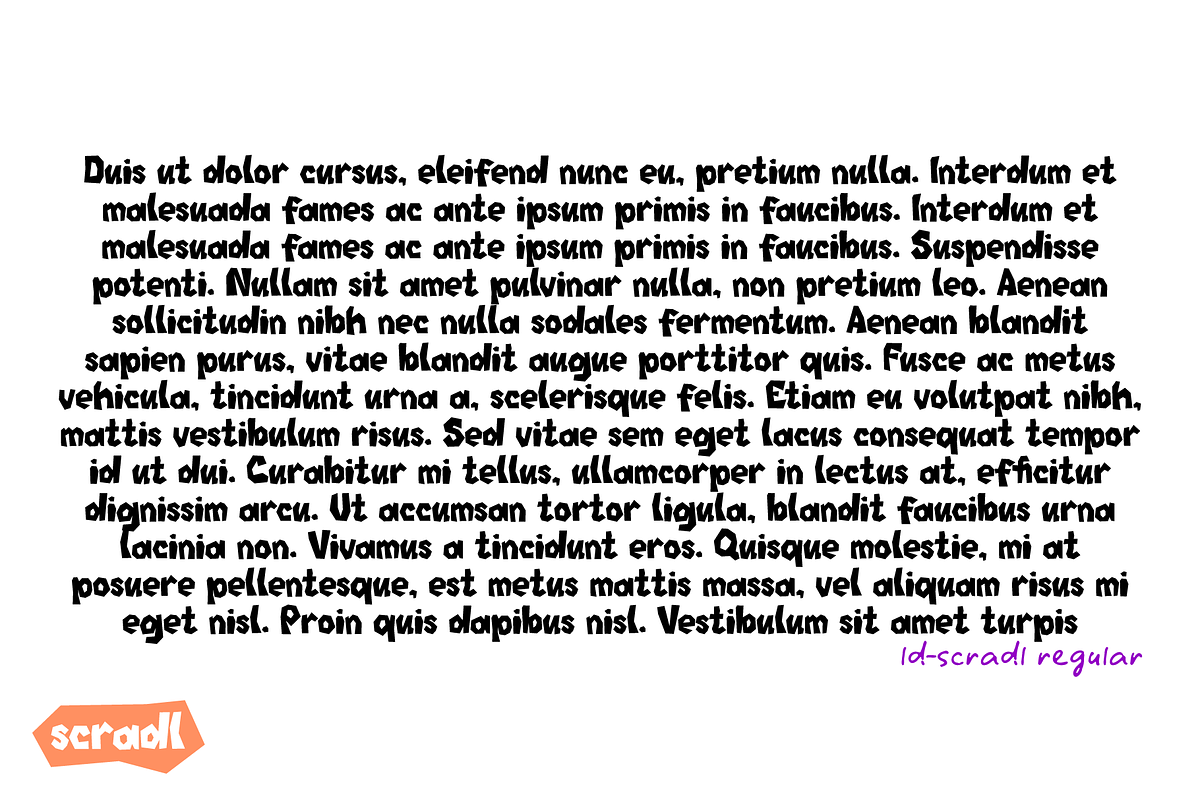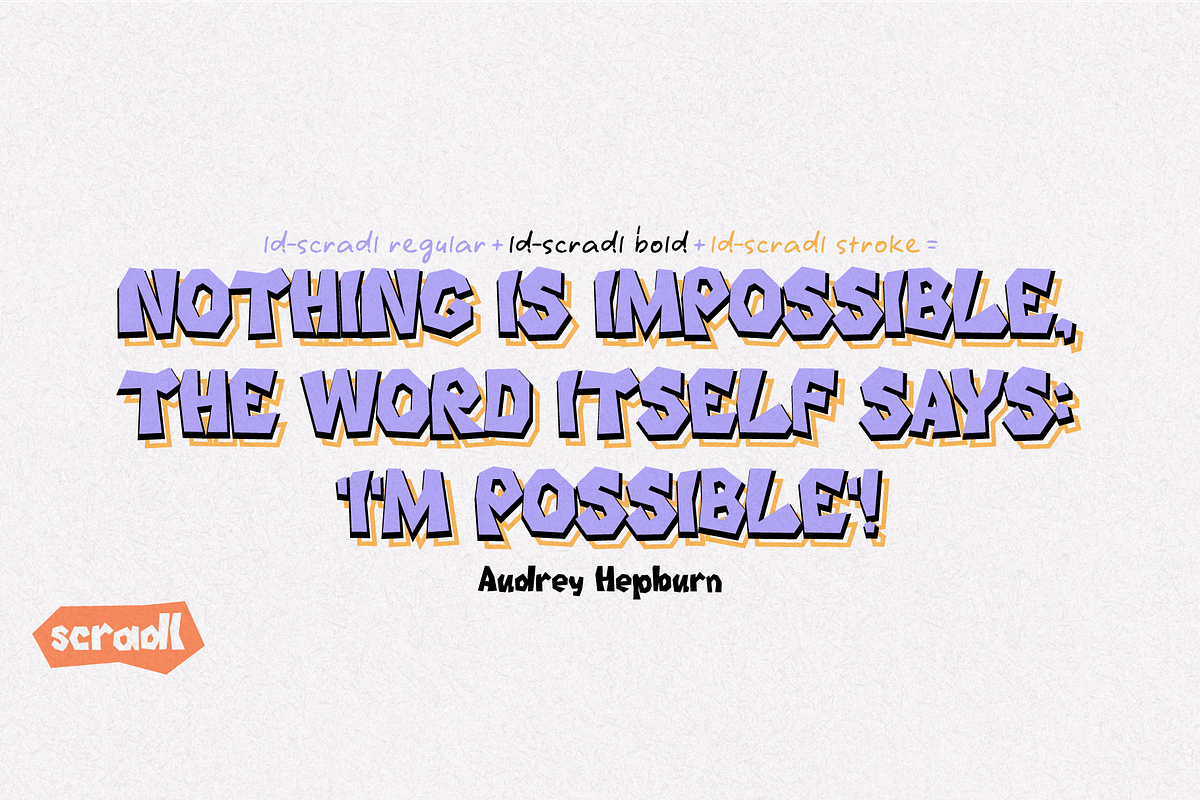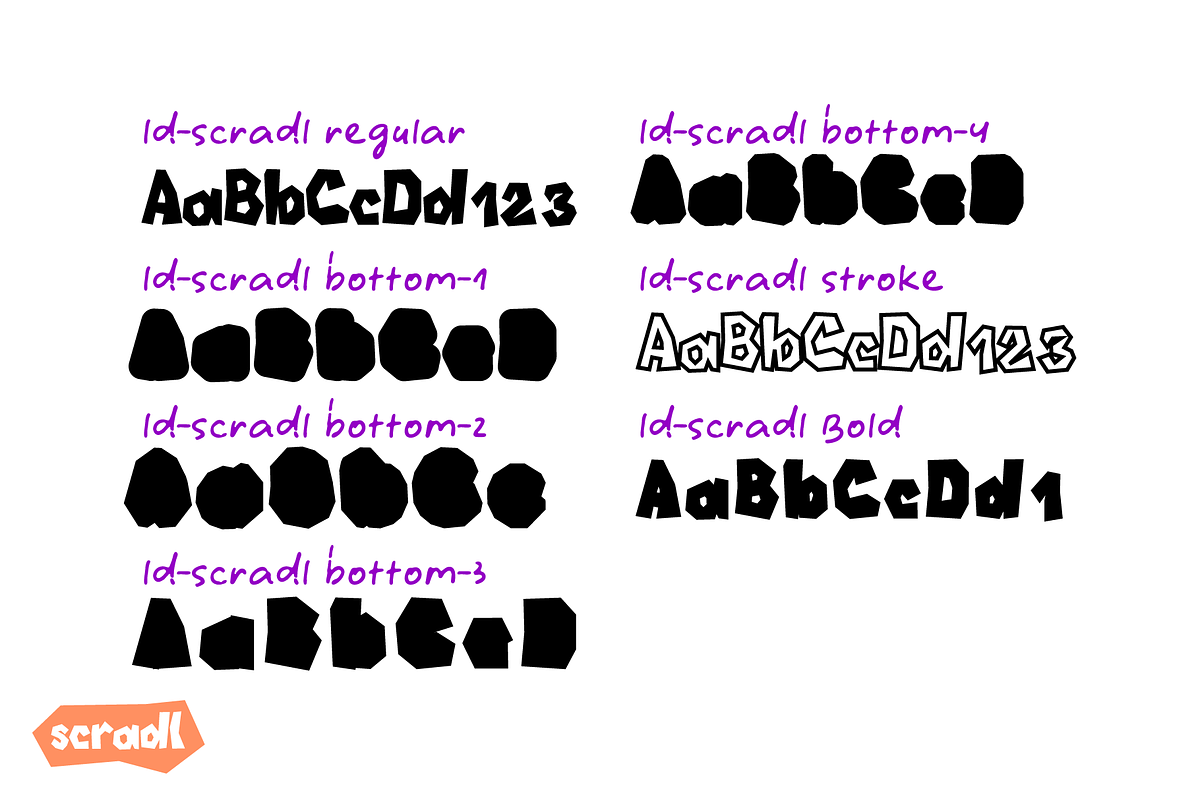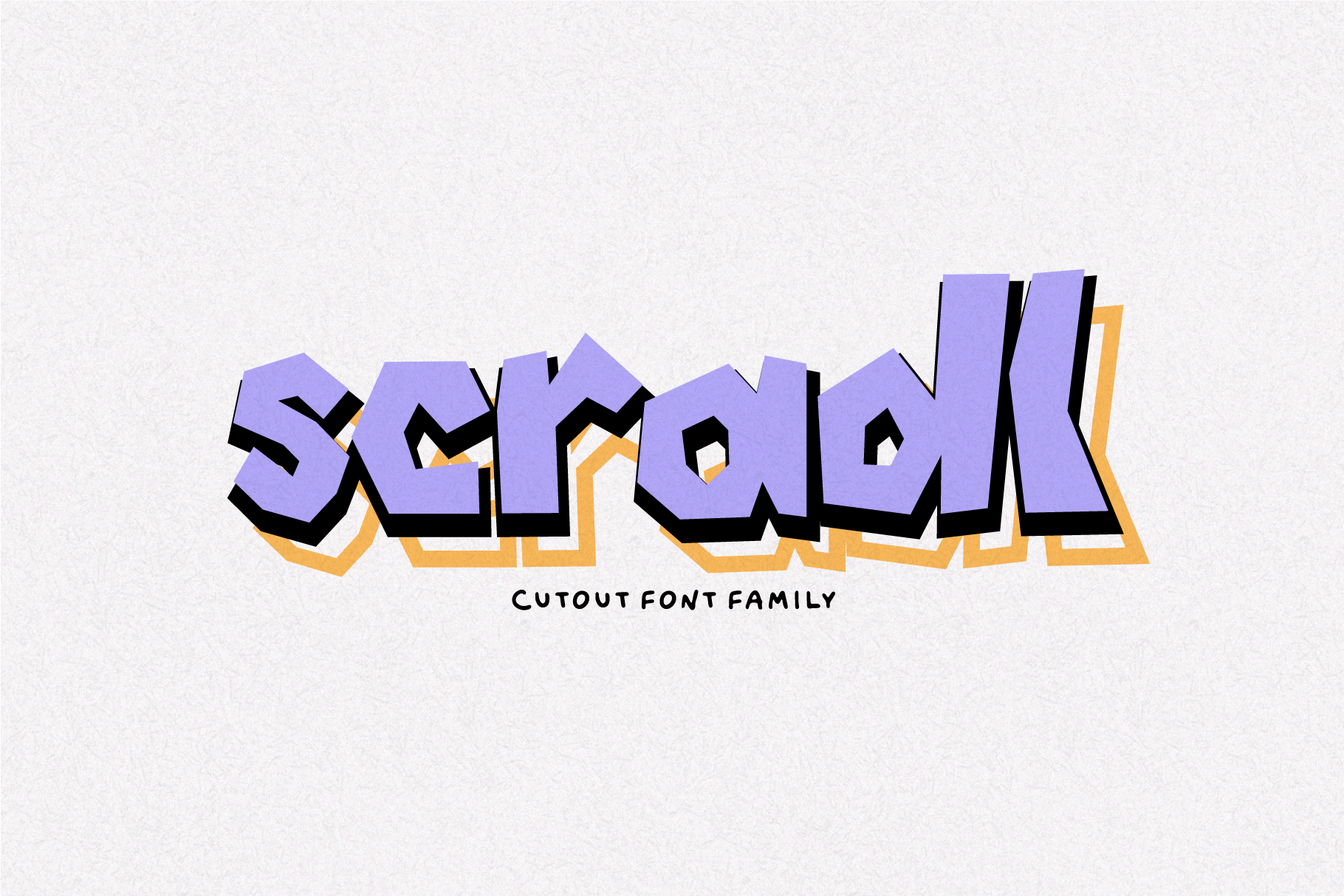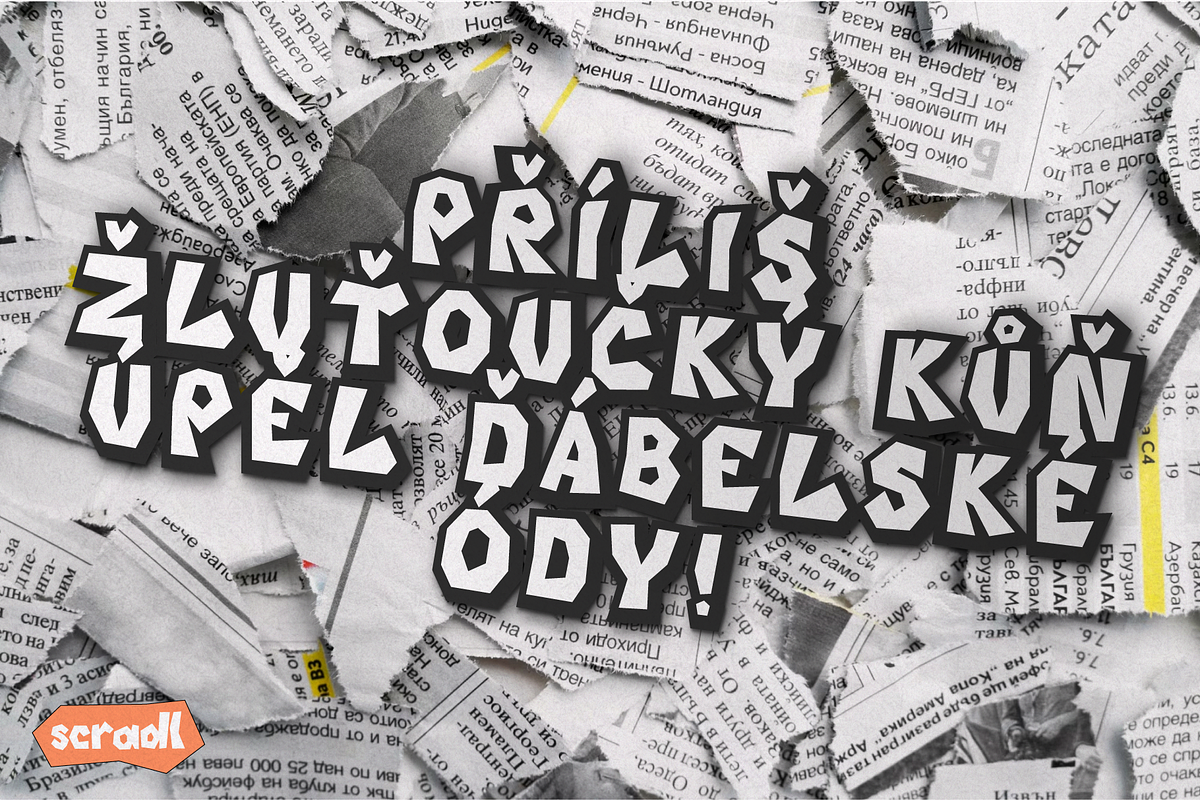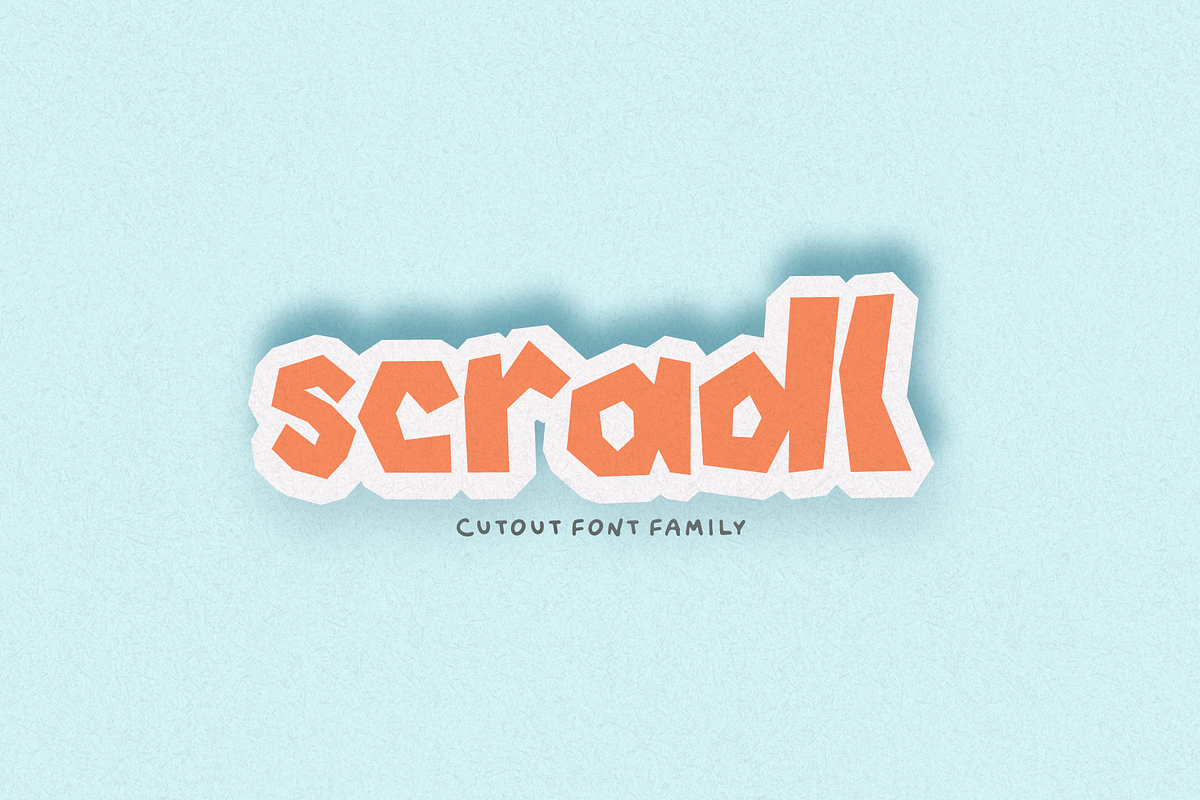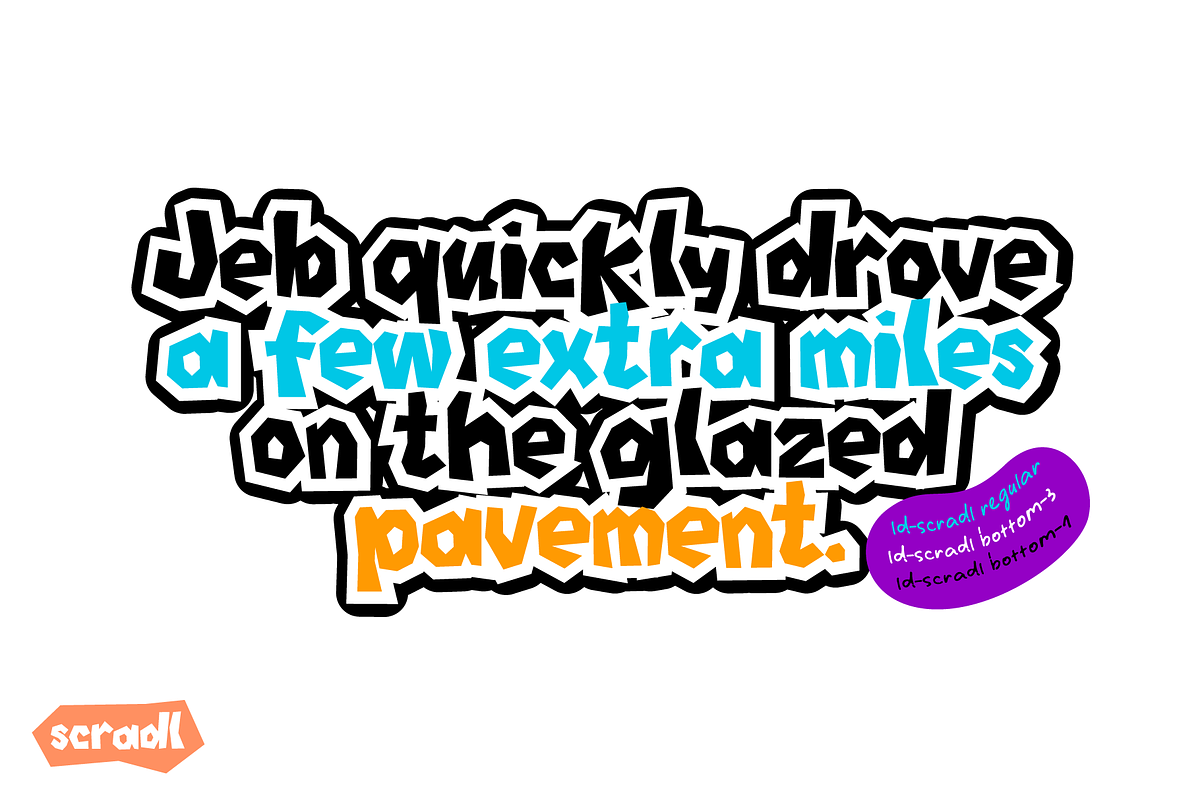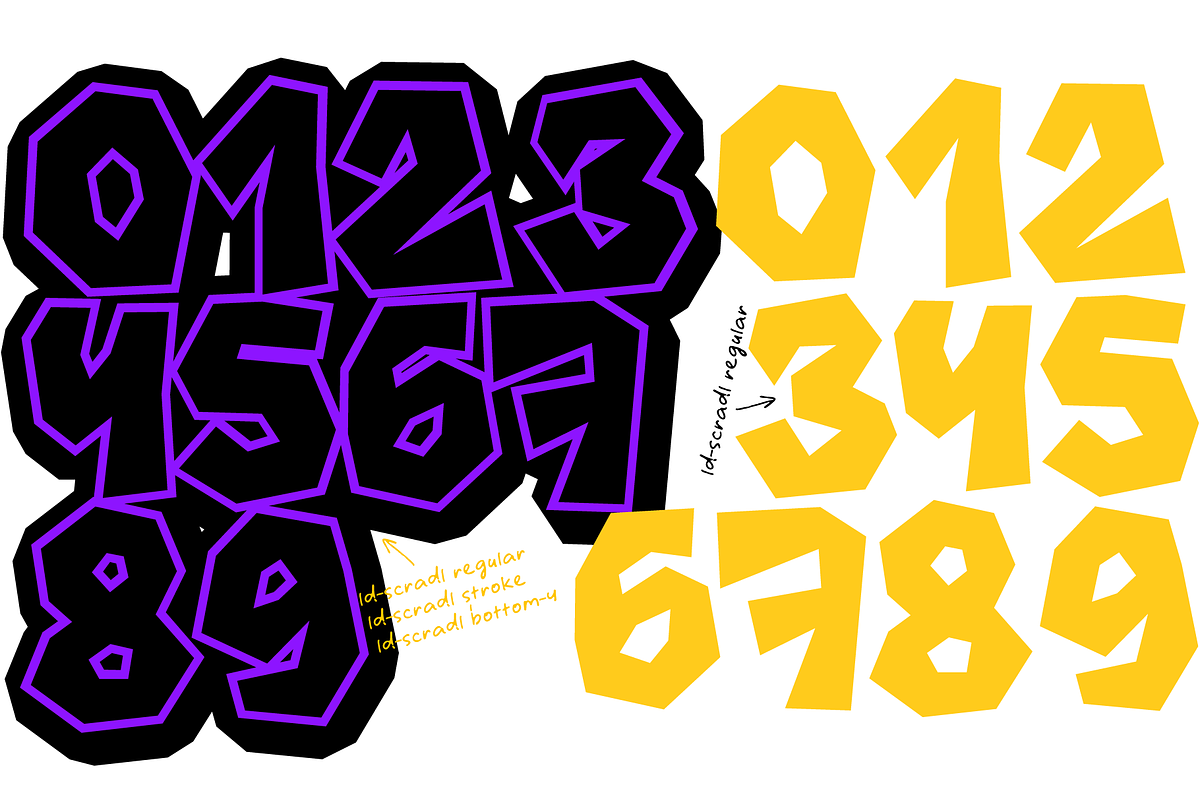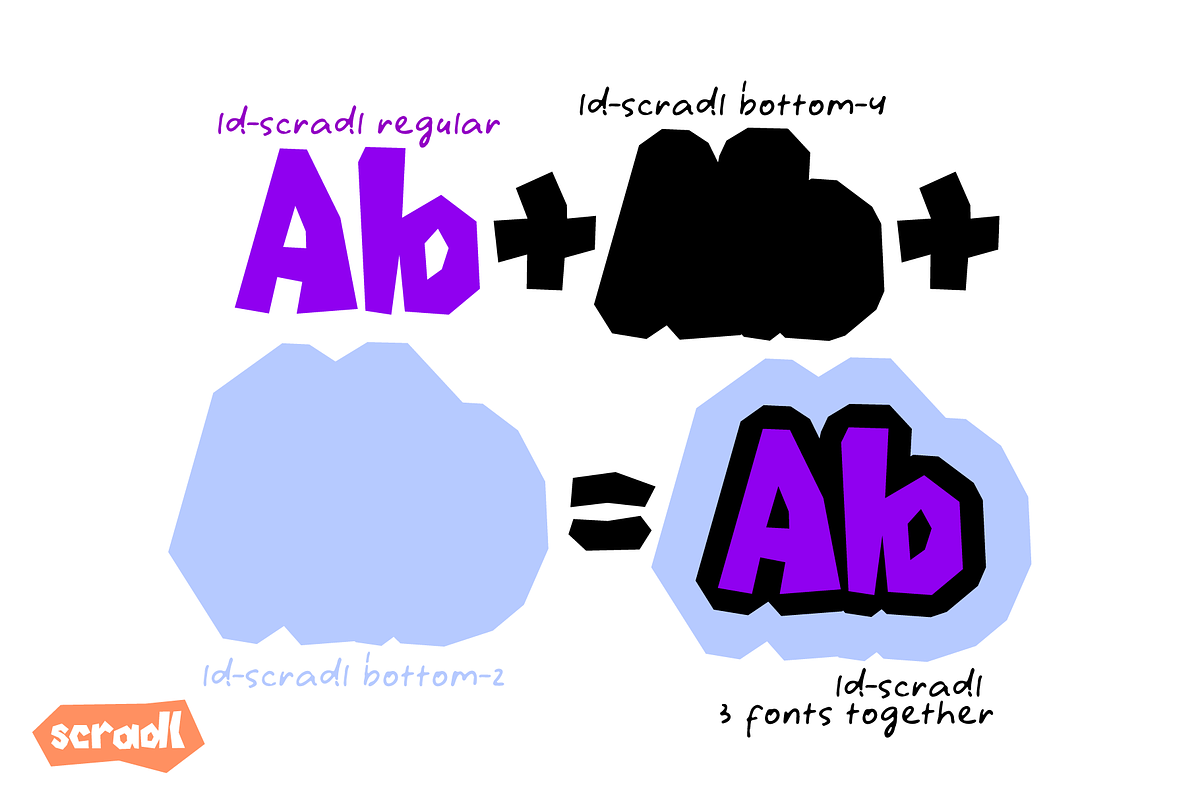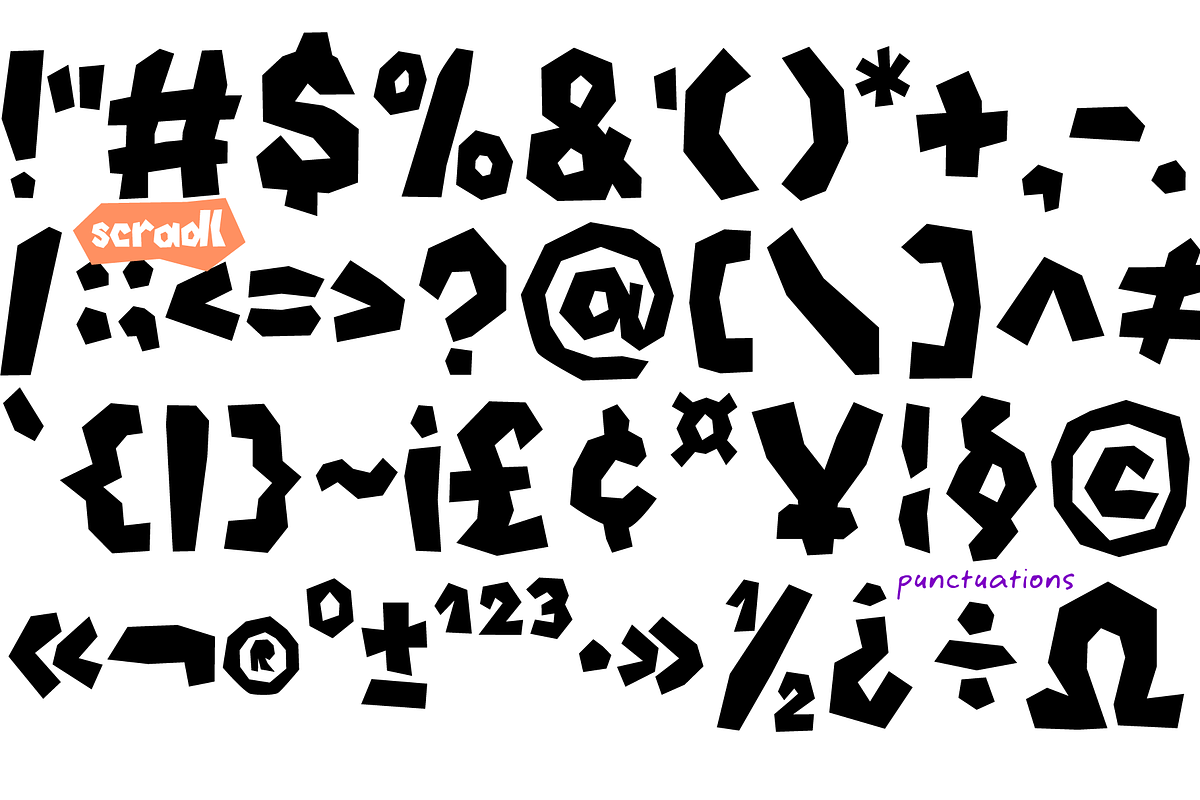
SCRADL. Layered Cutted Font Family.
Welcome to the world of SCRADL - where fonts become the tool of the cutter and the artist at the same time. These letters, as if cut out of paper without preliminary drawings, are rough, angular and full of character.
The main font is the canvas for your creativity. Additional variations add a stroke, shadow, or even a sticker effect, creating a harmonious visual interaction. Create decorative titles, highlights, and stickers to give your projects a unique look.
With SCRADL your imagination becomes the epitome of design freedom. This unique font family encourages projects in a variety of styles and directions. Here are just a few areas where this font family can be applied: Picture Books, Graphic Design, Creative Projects, Branding & Logo, Decorative Experiments, Art & Crafts, etc.
This font family is your way to add vibrancy and character to every word, creating designs that will be noticed and remembered.
- Kerning
- Ability to adapt letters to other languages